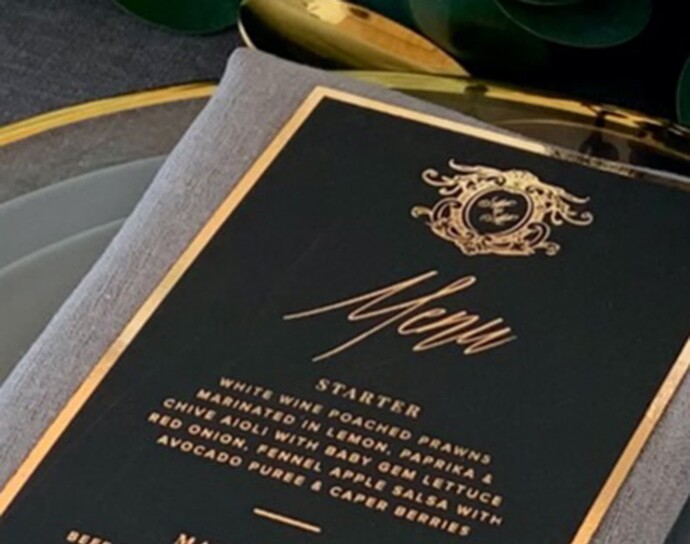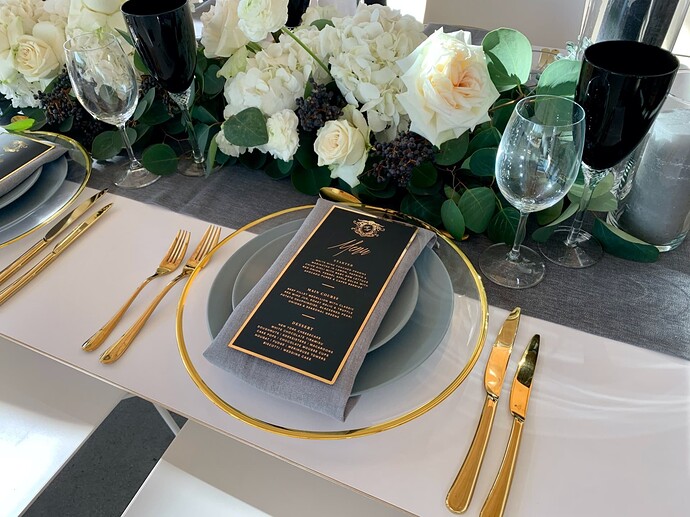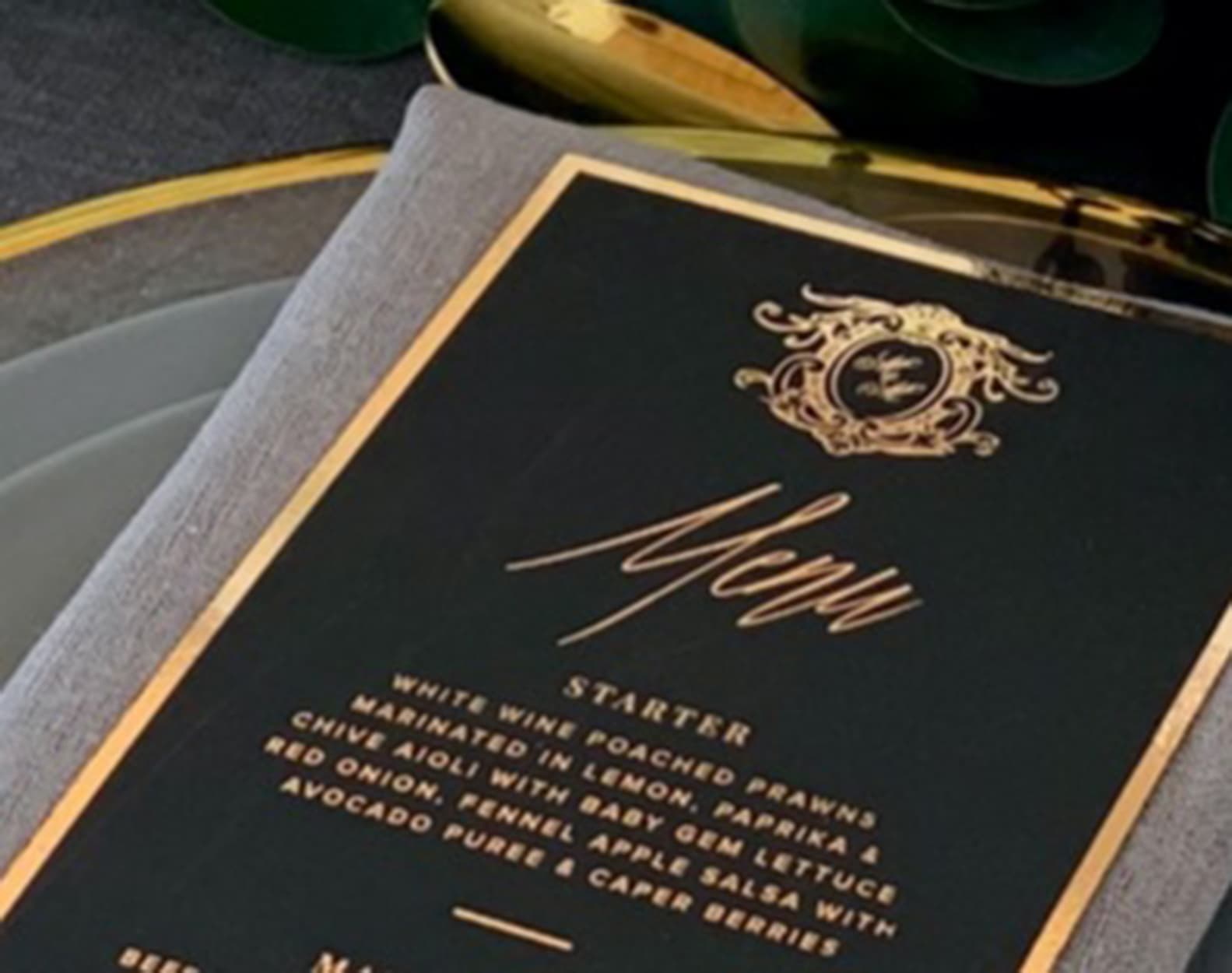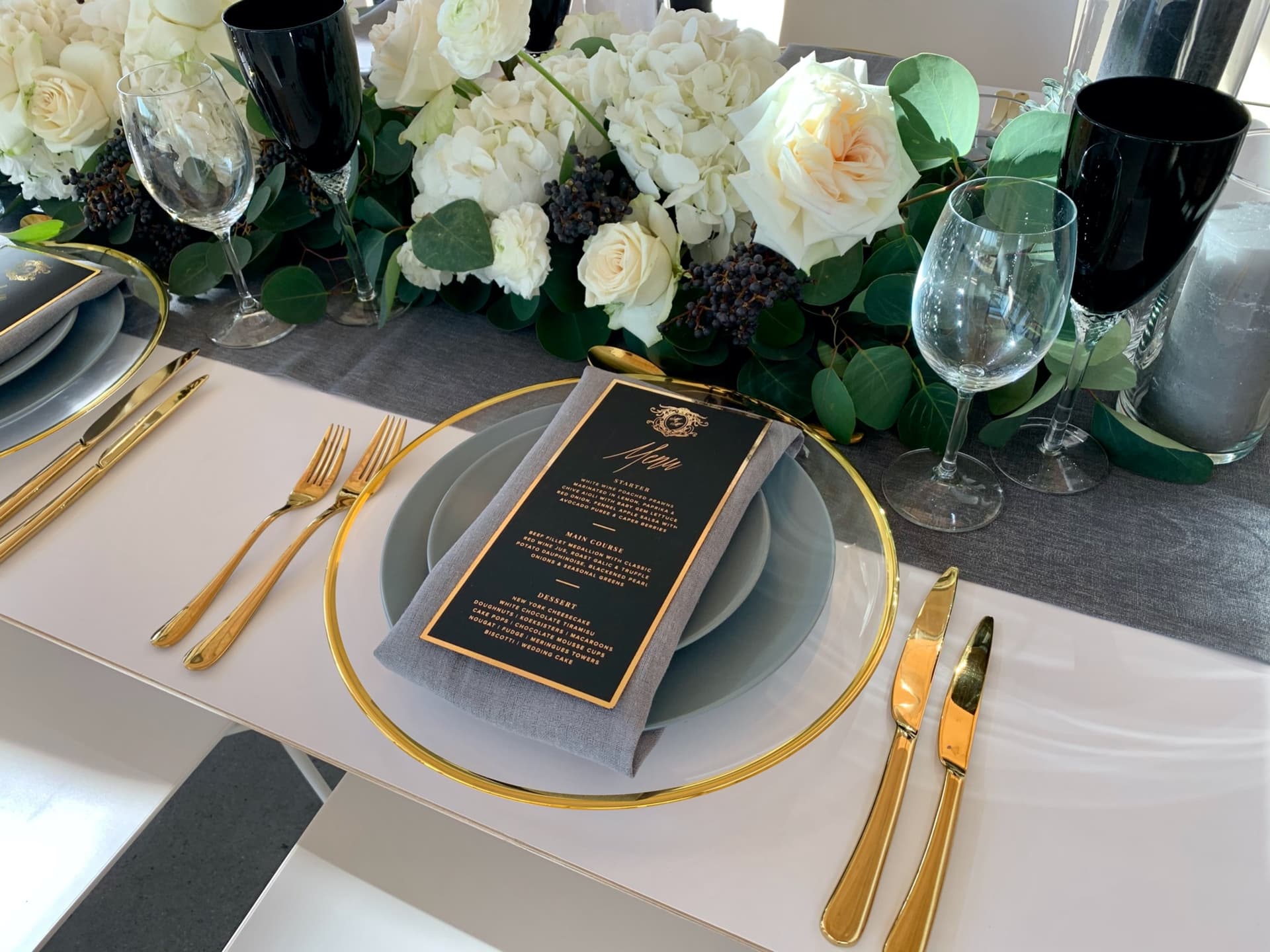
Hi All, I need some help, can anyone identify the font used for the word Menu?
The nearest I can see is an manually emboldened version of:
The font is Shameless
Great font. I bookmarked that for the future.
I read “Yew”.
It’s a nice-looking typeface if legibility isn’t a consideration. The type on the menu obviously says menu because of the context of the word actually being on the menu. In a less obvious setting, I might have read it as Yew too.
Despite the cool look of all the long squiggles, I can’t think of too many occasions where I’d actually use it since it’s so illegible.